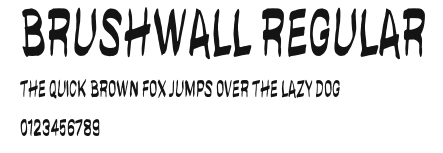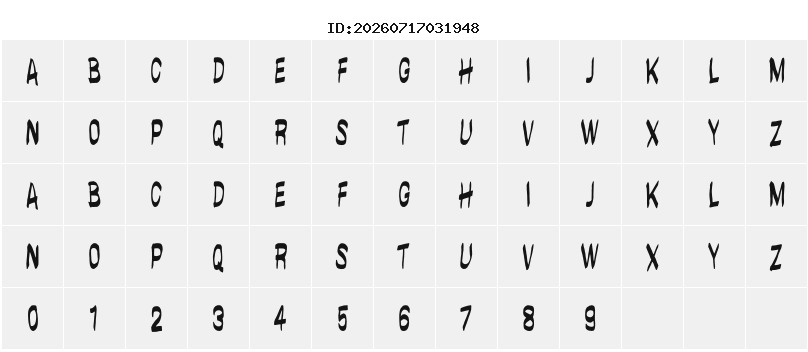
brushwall regular Preview
• Font Name: brushwall regular
• Font ID: Cruzine: brushwall regular: 2014
• Full Font Name: brushwall regular
• PostScript Name: brushwallregular
• Designer: Cruzine
• Manufacturer: Cruzine
• Description: brushwall regular is a trademark of Cruzine.
About brushwall regular.ttf
brushwall regular.ttf is a modern, elegant sans-serif font designed for ultimate readability and visual harmony. Perfect for branding, headlines, web design, and print materials.